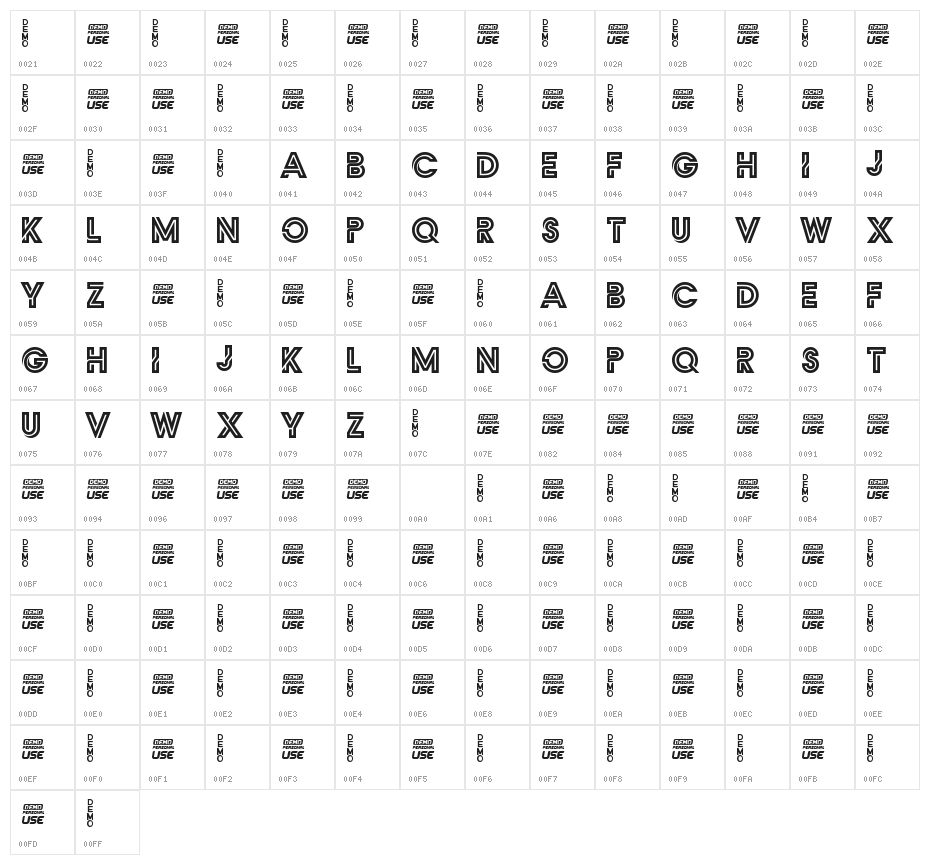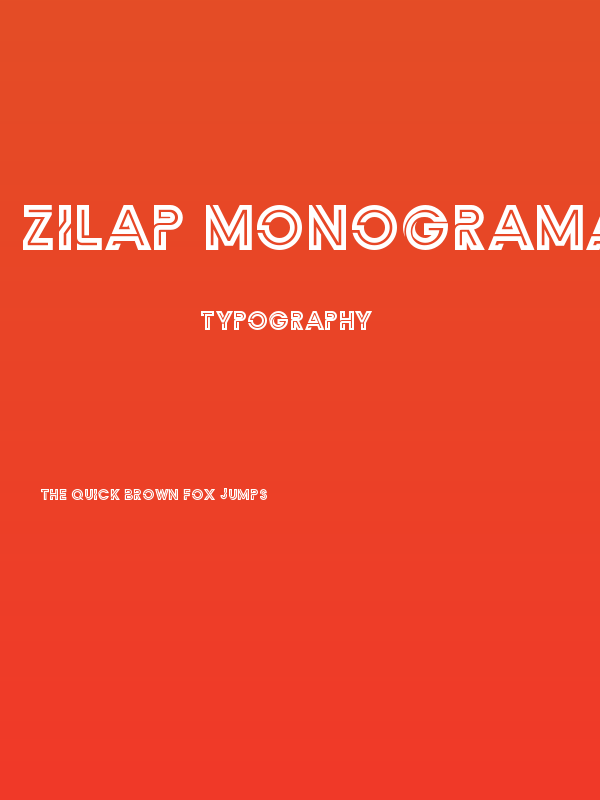
Zilap Monograma Font
Zilap Monograma Description
This font features a bold, geometric style with a strong emphasis on symmetry and clean lines. The uppercase letters are characterized by their thick, uniform strokes and distinct, angular shapes. The design incorporates a modern aesthetic with a touch of retro influence, making it suitable for eye-catching displays. The characters are outlined, providing a unique, layered appearance that adds depth and dimension. This font is ideal for creating impactful headlines, logos, and branding materials that require a bold and memorable visual presence.
| Proposed Projects | Ideal for branding, logos, headlines, posters, and any project requiring a striking visual impact. |